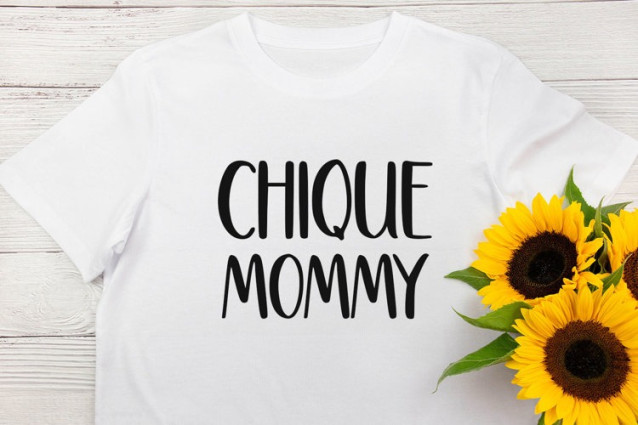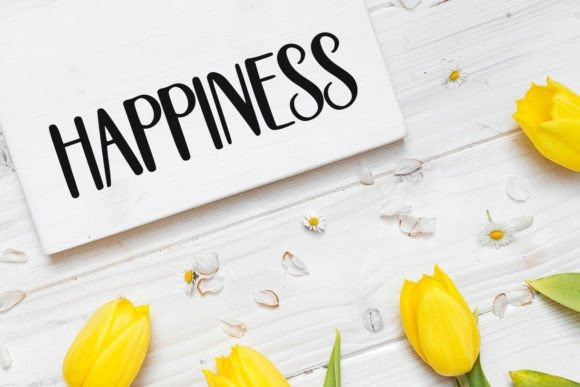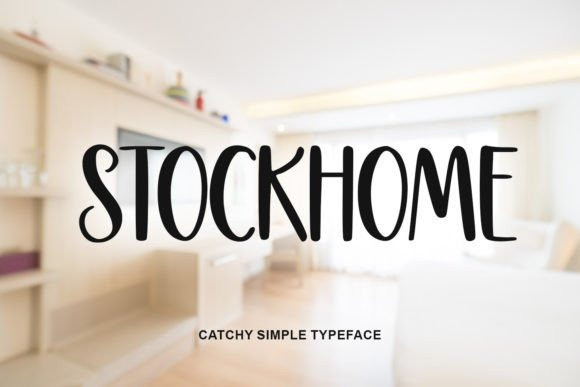
Stockhome Font
Stockhome Font is great for t-shirt designs, quotes, mugs, tote bag designs, cards, banners, social media, and other craft projects.
Balanced and varied, this font was designed to beautify your projects